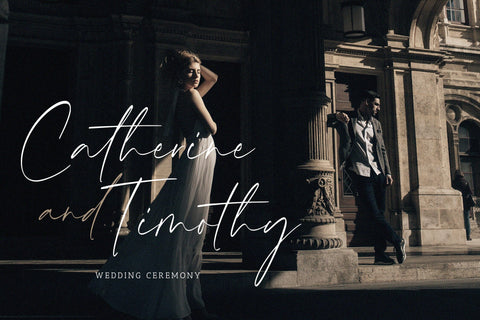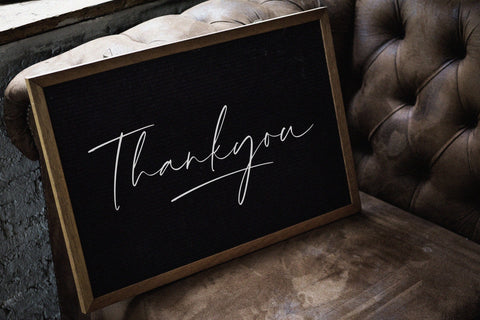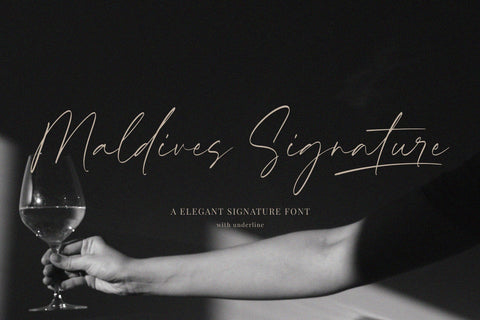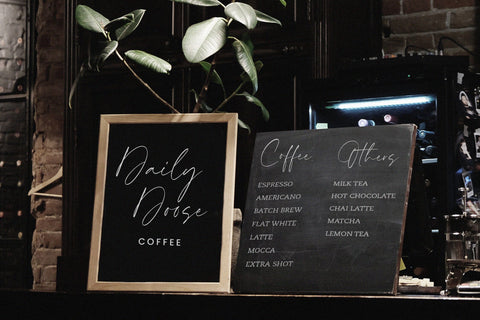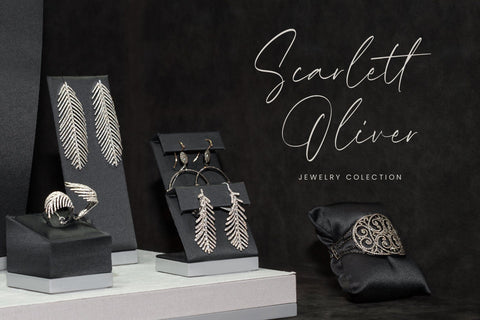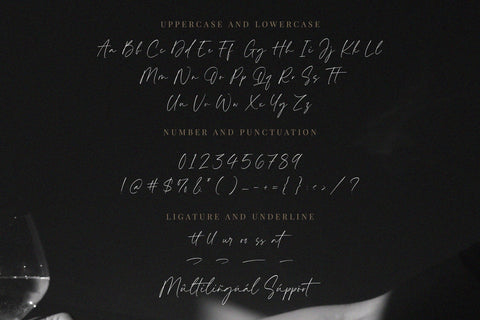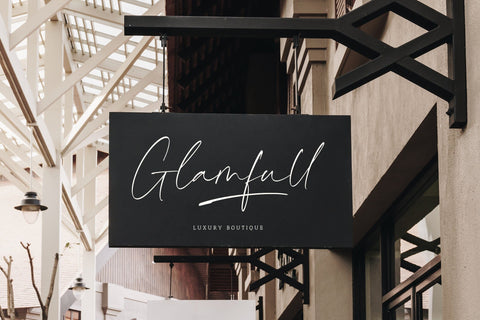
Maldives Signature - Elegant Signature Font
Proudly Present, Maldives Signature
Maldives Signature A Elegant Signature Font , which was created with great care and specially created for you 😊
Maldives Signature is perfect for product packaging, branding project, megazine, social media, wedding, or just used to express words above the background.